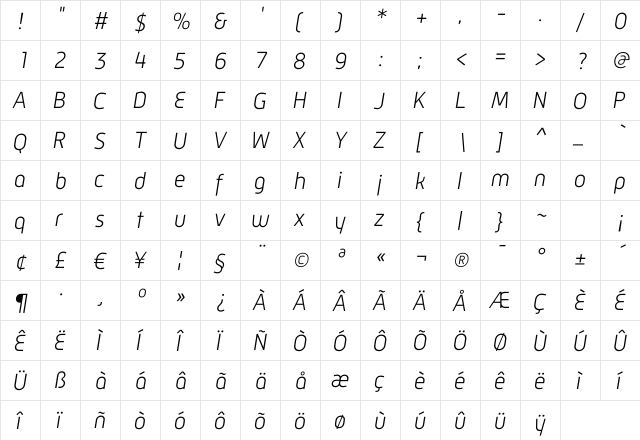
Mic 32Light Oblique Regular
Design Context for Mic 32Light Oblique Typeface
Mic 32Light Oblique takes a measured approach to typography — its balanced proportions and neutral character make it a reliable workhorse for both digital and print work. The slanted form adds forward momentum and visual energy. The delicate stroke weight brings airiness and refinement to layouts.
Pro Tip: Use Mic 32Light Oblique for emphasis, pull quotes, and subheadings where its slanted energy can add rhythm to the layout.